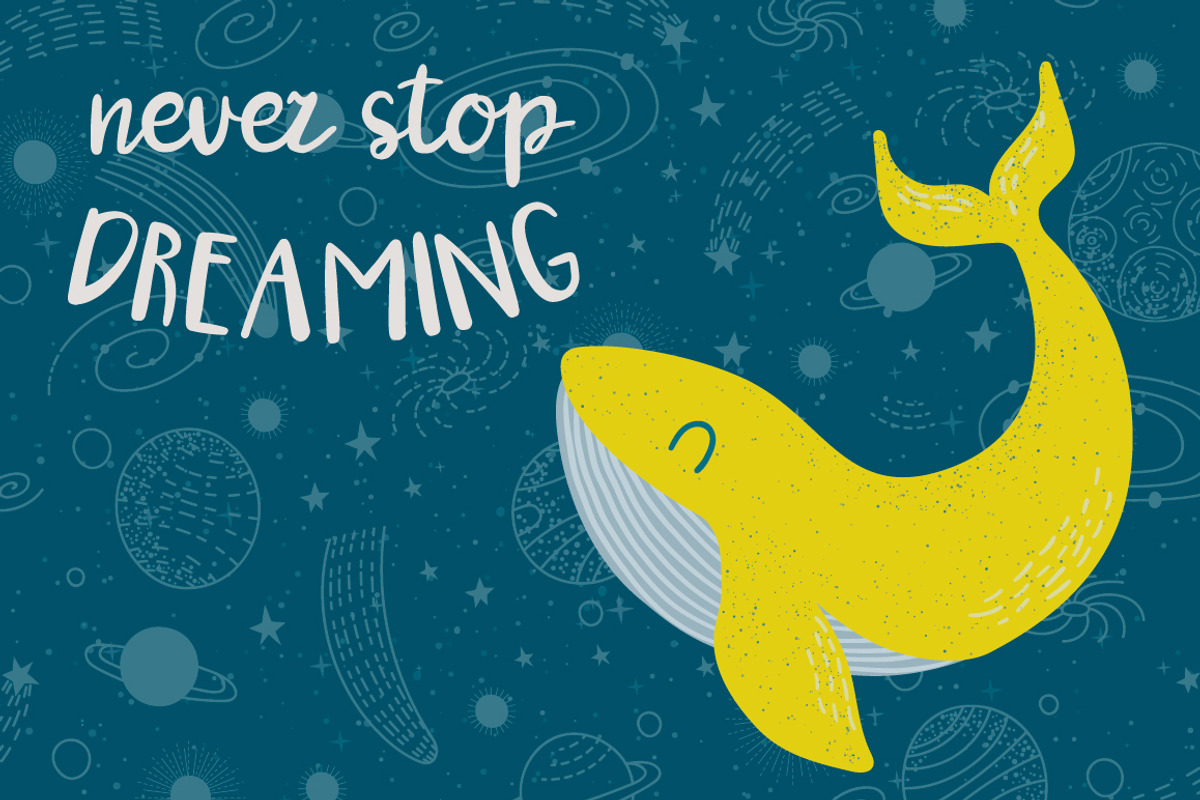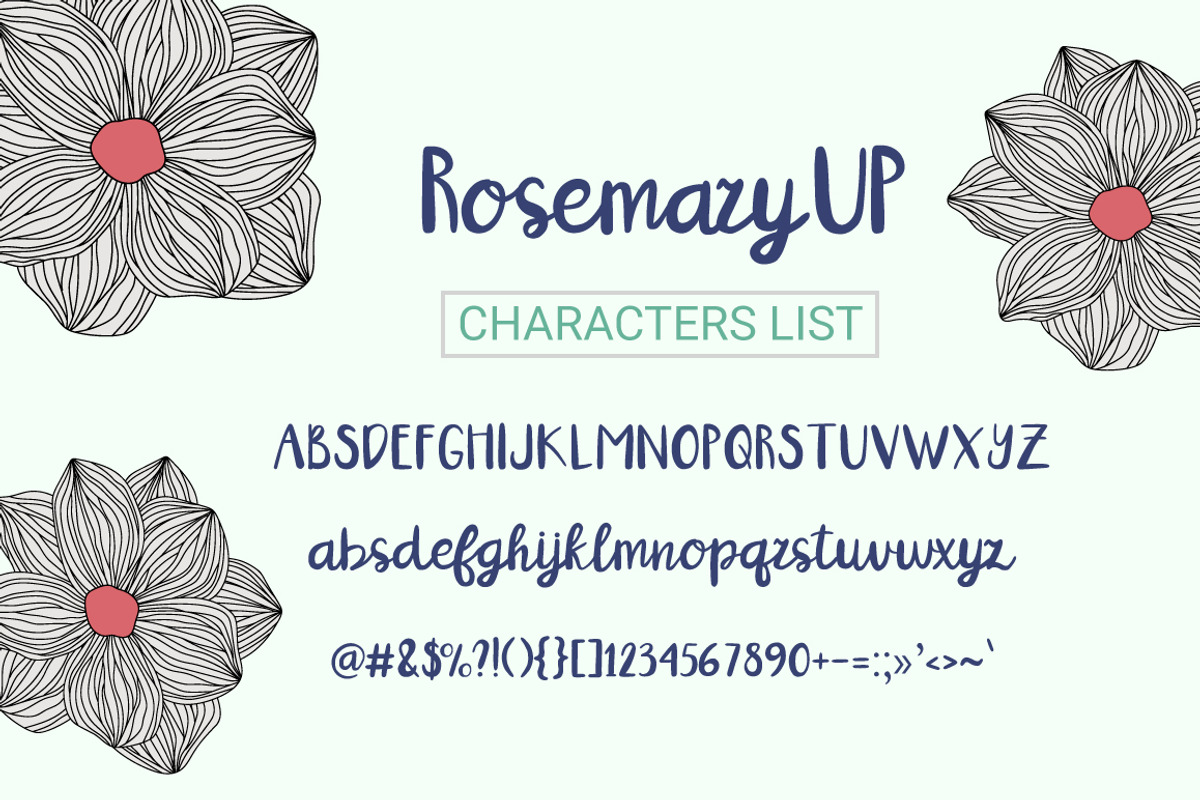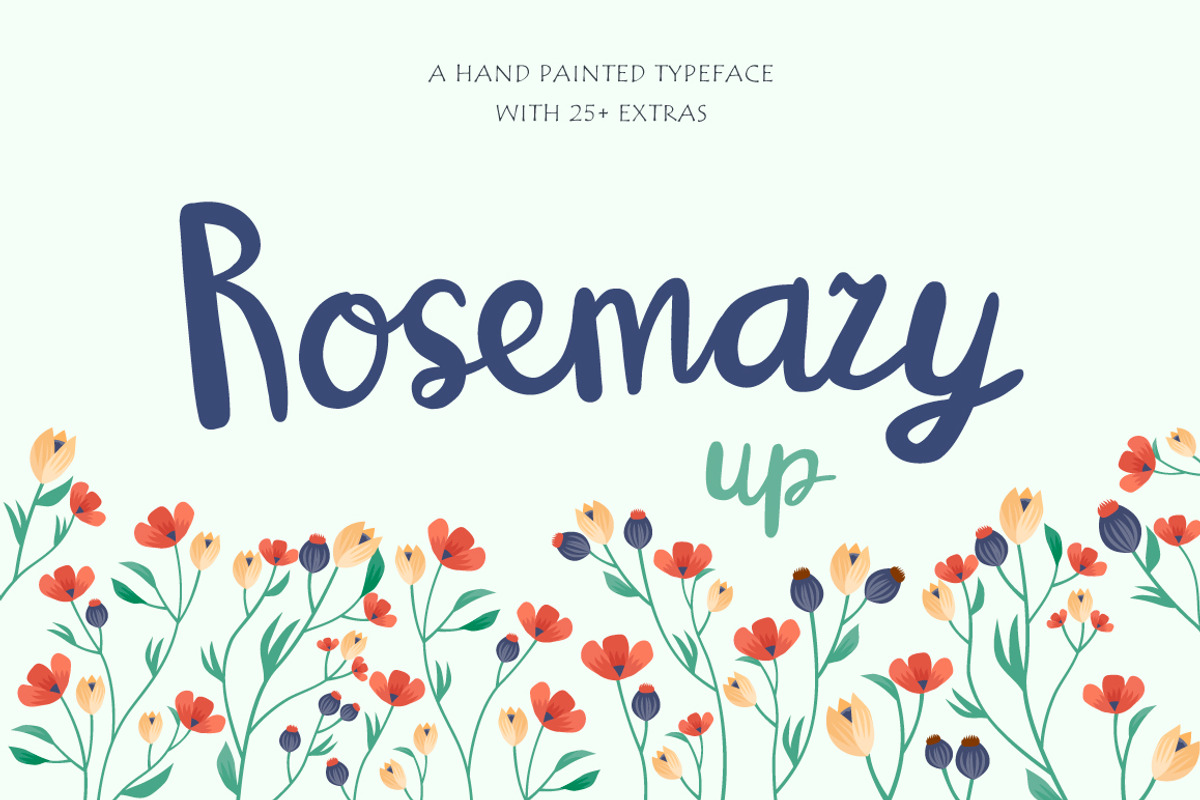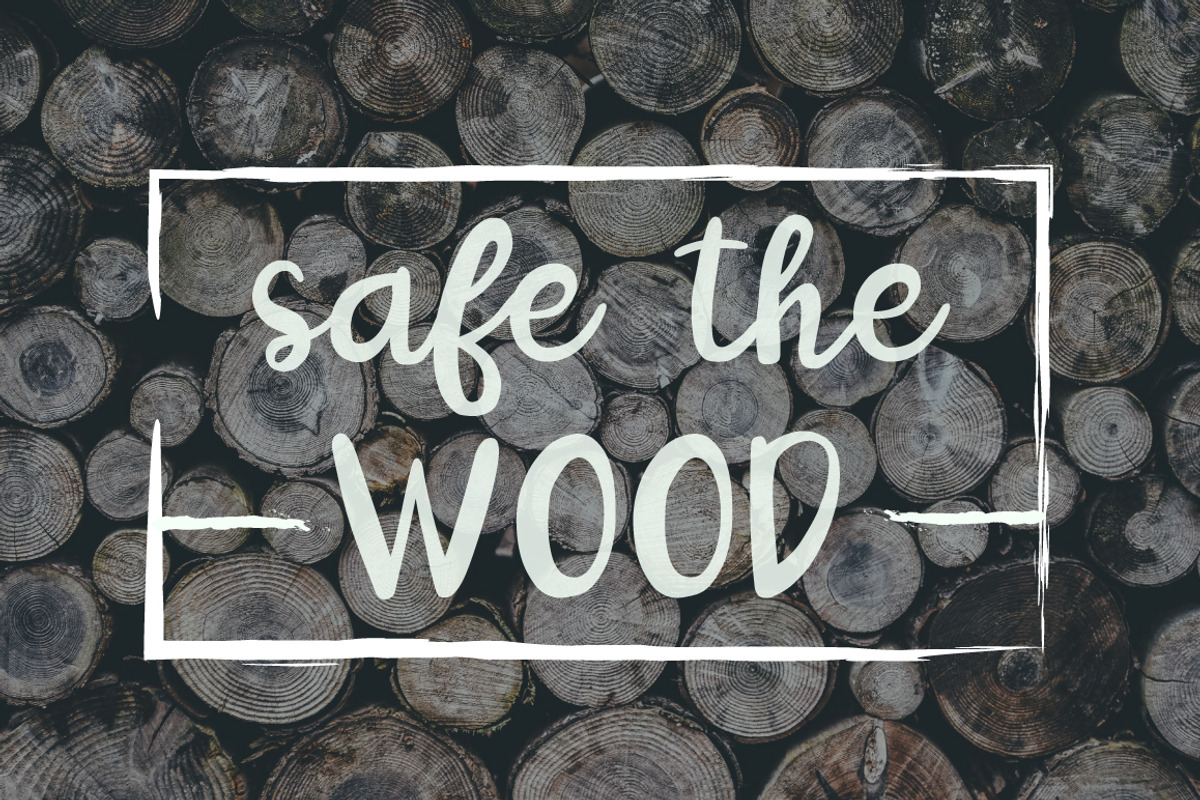
RosemaryUP script font + extras
RosemaryUP script font + extras by Pxlhead is a font selected for branding, posters, packaging, typography.
- The script version comes as lowercase and uppercase that are perfectly connected together.
Why RosemaryUP script font + extras is worth a look
RosemaryUP script font + extras by Pxlhead fits naturally into Branding, posters, packaging, typography.